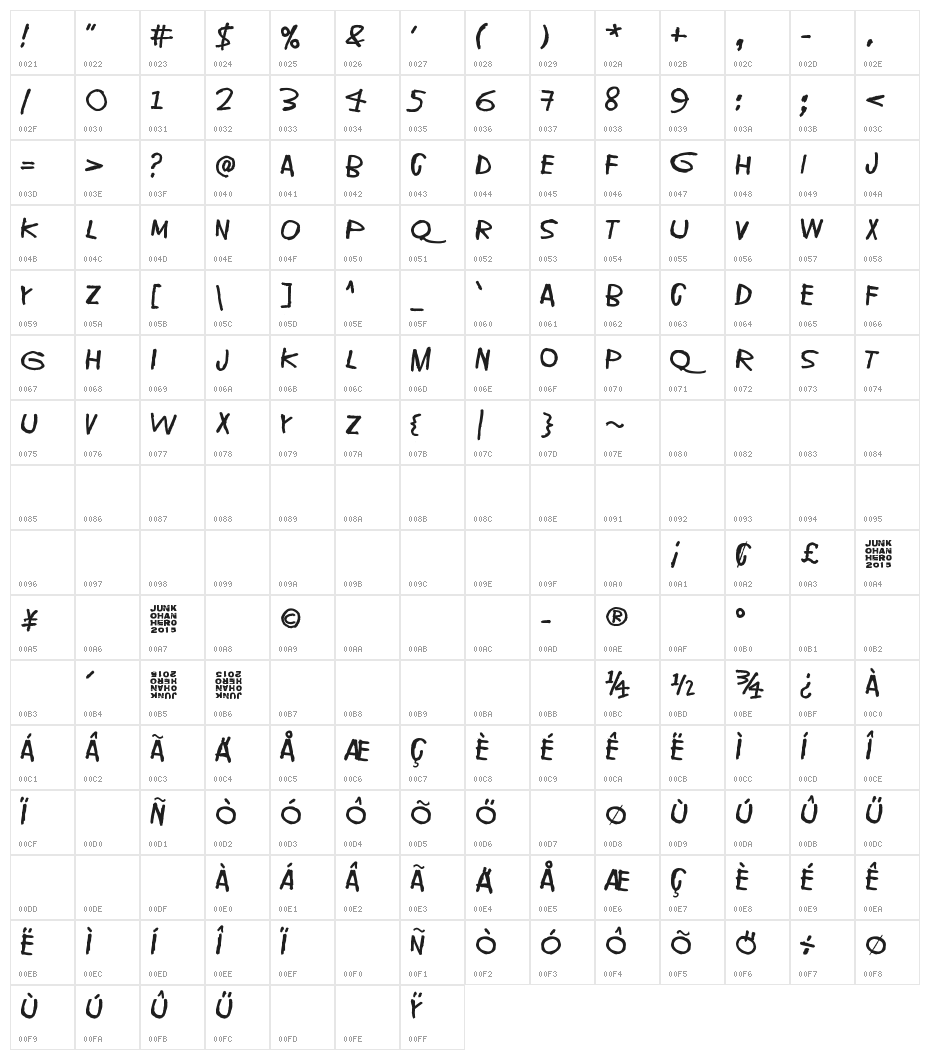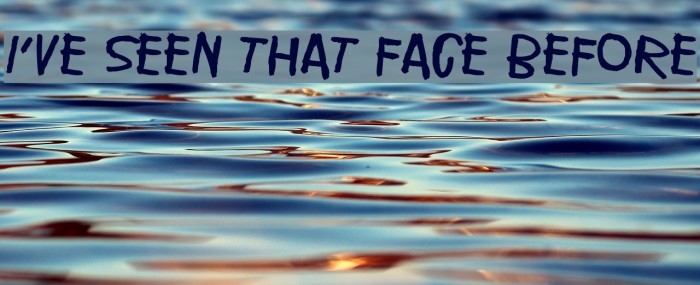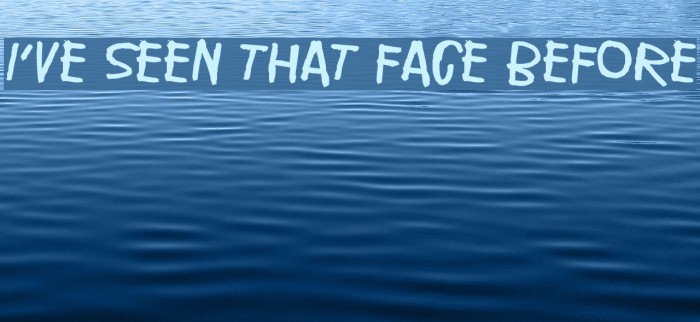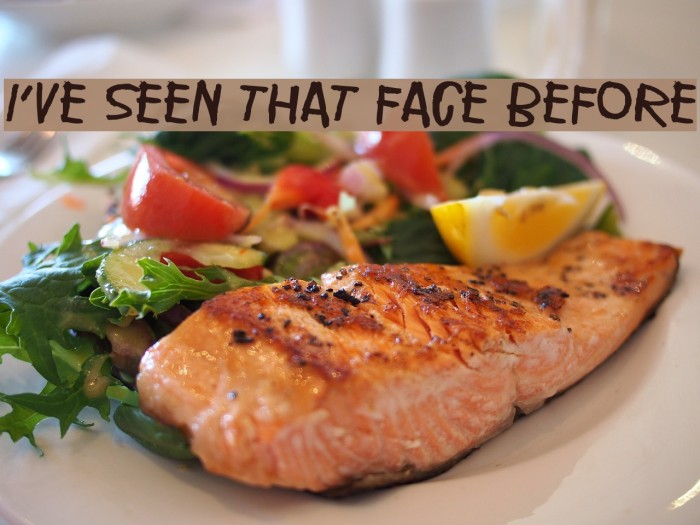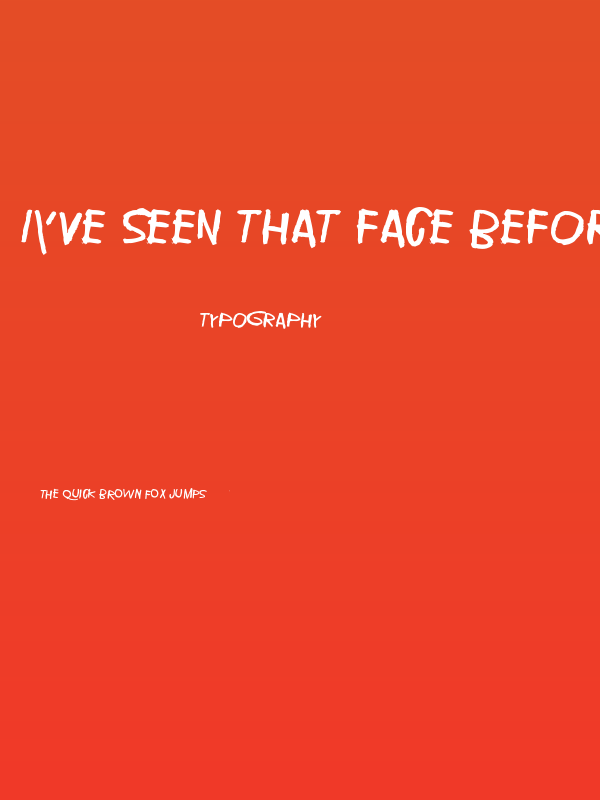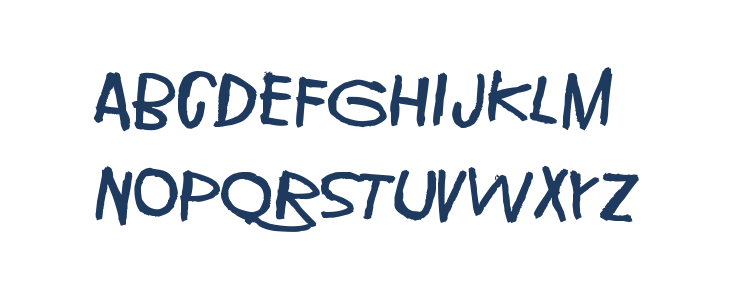
I've seen that face before Font
I've seen that face before Description
This font exhibits a bold, handwritten style with a playful and energetic character. The letters are slightly irregular, giving it a personal and informal touch. The strokes are thick and consistent, providing a strong visual impact. The uppercase and lowercase letters maintain a cohesive look, while the numbers and special characters complement the overall style. The font's dynamic appearance makes it suitable for creative and expressive projects.